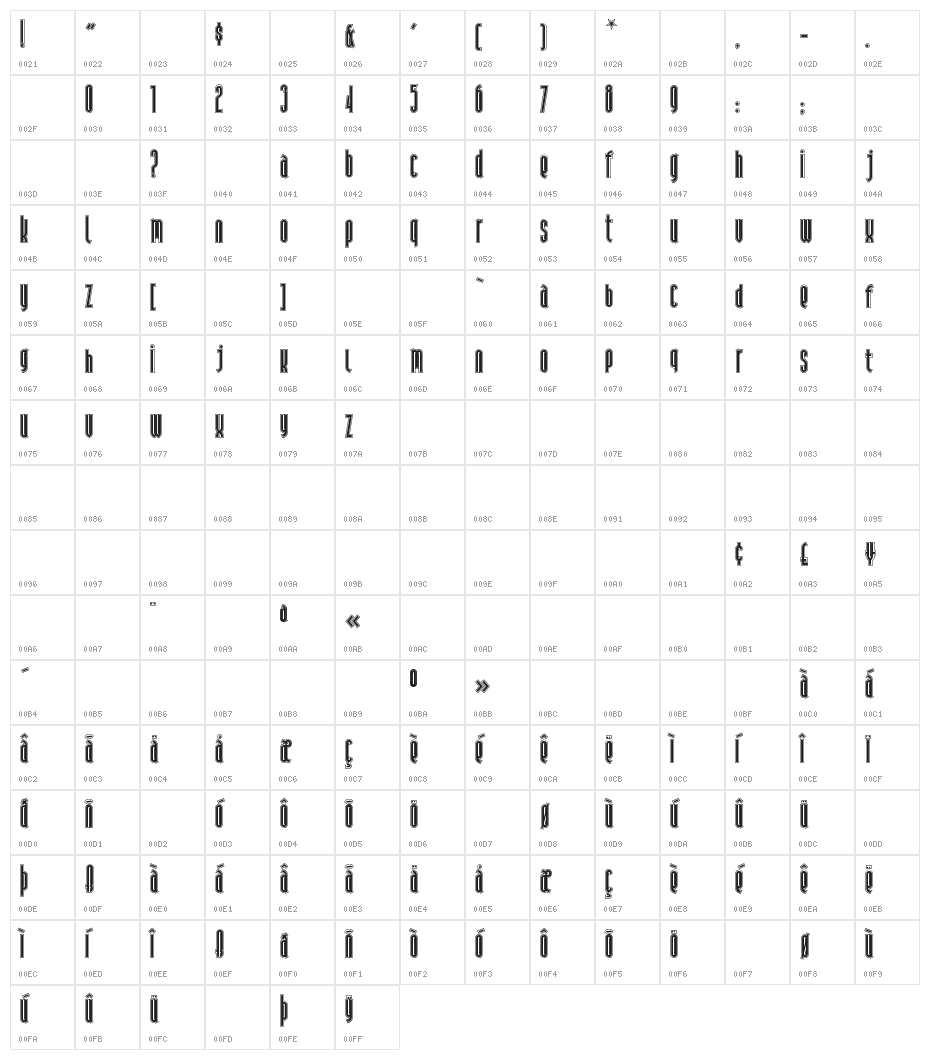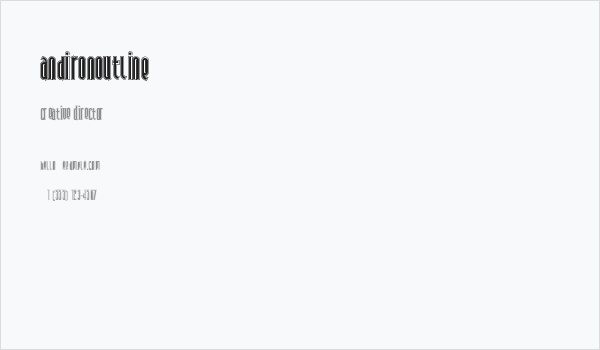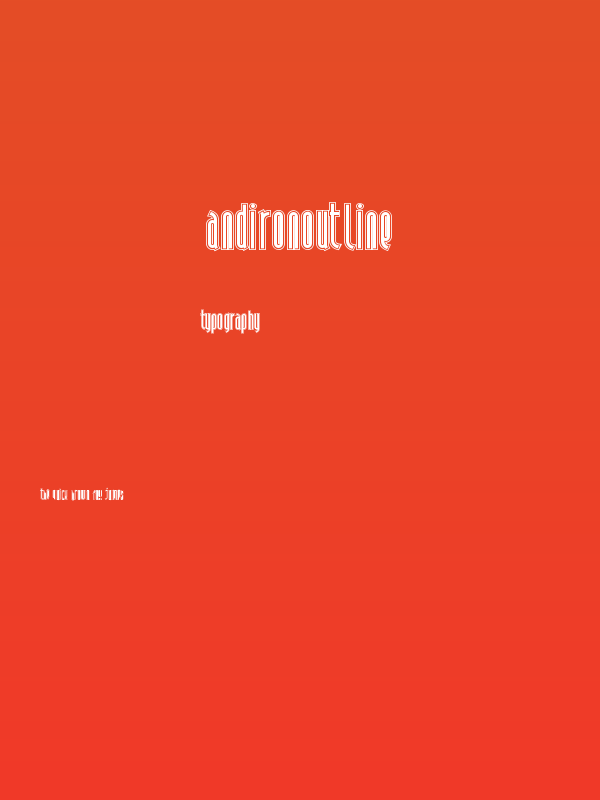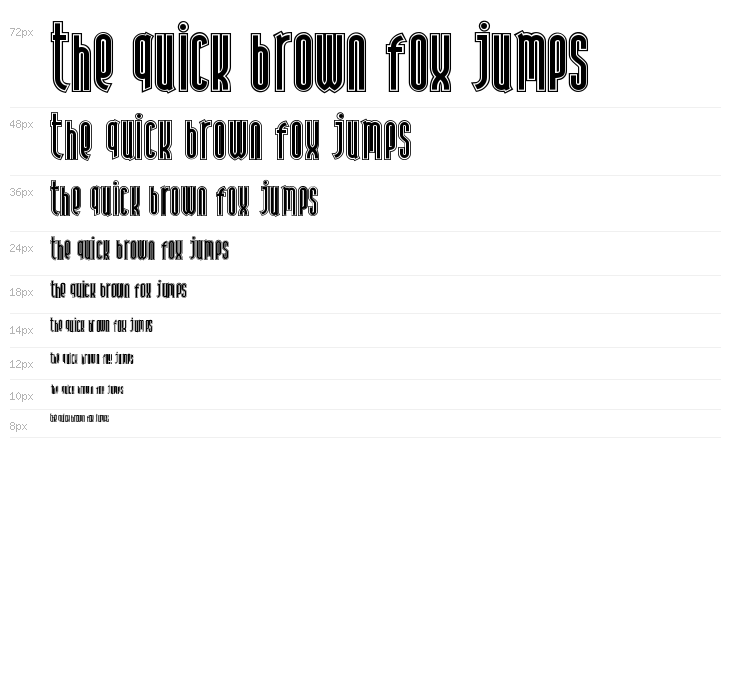
AndironOutline Font
AndironOutline Description
This font features a bold, outlined style that gives it a striking and impactful appearance. The characters are tall and narrow, with a distinct three-dimensional effect created by the shadow-like outlines. This design adds depth and a sense of movement to the text. The uppercase and lowercase letters maintain a consistent height, contributing to a cohesive look. The numerals and special characters are designed with the same attention to detail, ensuring uniformity across all elements. This font's unique style makes it ideal for projects that require a bold statement.
| Proposed Projects | Ideal for posters, headlines, branding, and any design requiring a bold, eye-catching font. |